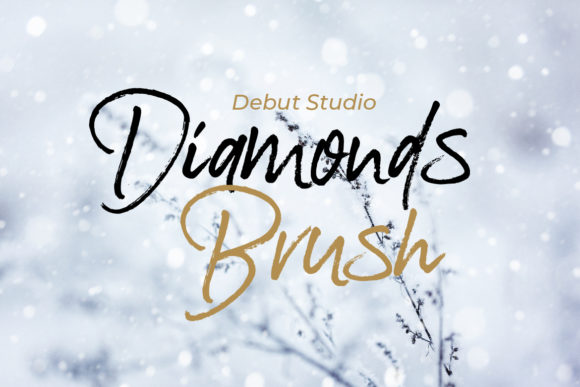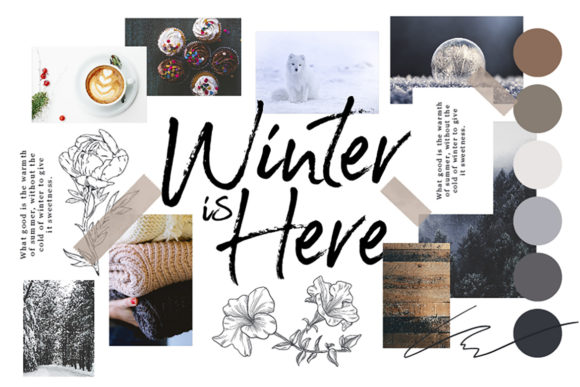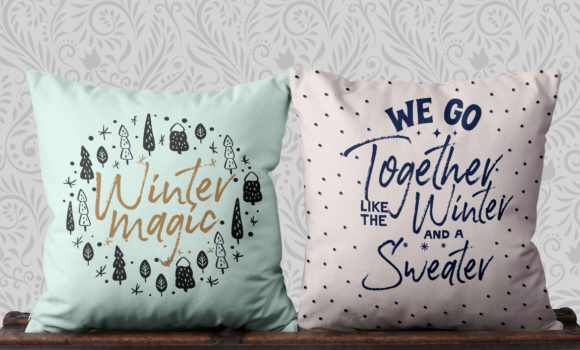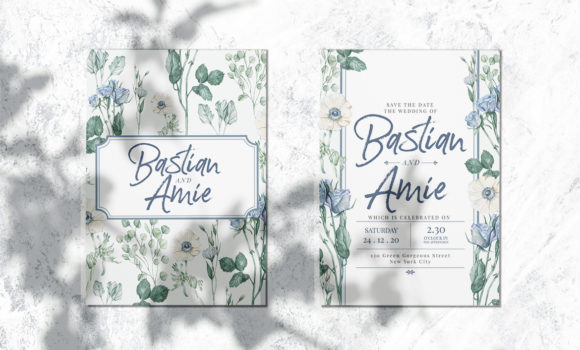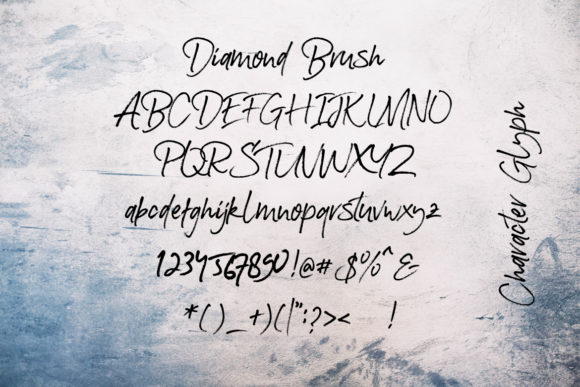
Diamonds Font
About Diamonds Font
Diamonds is a sweet and fun handwritten font that’s great for turning any design project into a true standout. Fall in love with its authentic vibe.